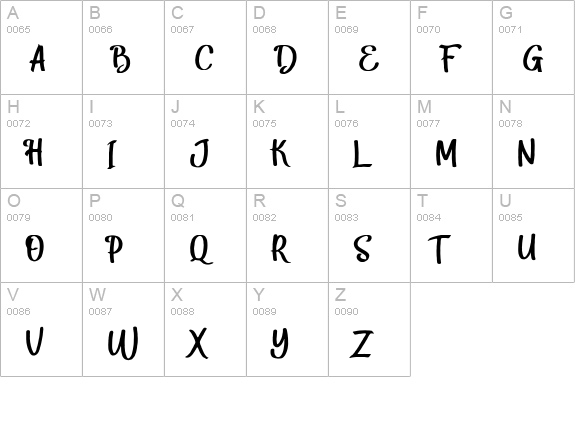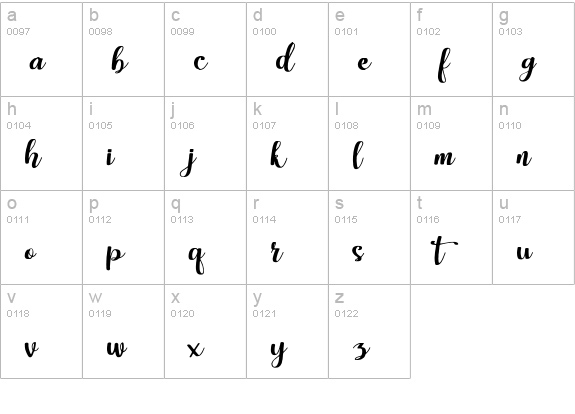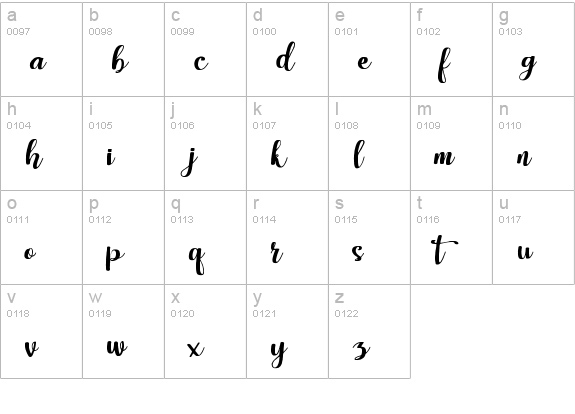
Harley Script is a free for personal use font in the Script > Brush category, designed by madeDeduk. It has been downloaded 42 times and is available for Windows, Mac and Linux.
Harley Script font is a stunning and elegant typeface that exudes sophistication and charm. Its flowing lines and graceful curves make it perfect for a wide range of design projects, from wedding invitations to branding materials. The font's delicate brush strokes give it a handcrafted feel, adding a personal touch to any text it graces.